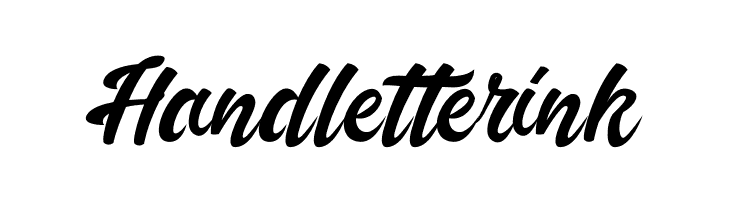
( William Cunningham - NerdyDesign.com )
A classic serif font with elegant strokes and pronounced serifs.
( Fonts by Letterena Studios )
( Fonts by Inermedia Studio )
An elegant and flowing script font with decorative flourishes.
( Fonts by Graham Meade - GemFonts )
A modern, geometric sans-serif font with clean lines and a structured appearance.
( Fonts by Graham Meade - GemFonts )
A modern, geometric font with clean lines and rounded edges.
( Fonts by Graham Meade - GemFonts )
A sleek, modern italic font with geometric precision and clean lines.
( Fonts by Graham Meade - GemFonts )
A sleek, modern italic font with geometric shapes and consistent stroke widths.